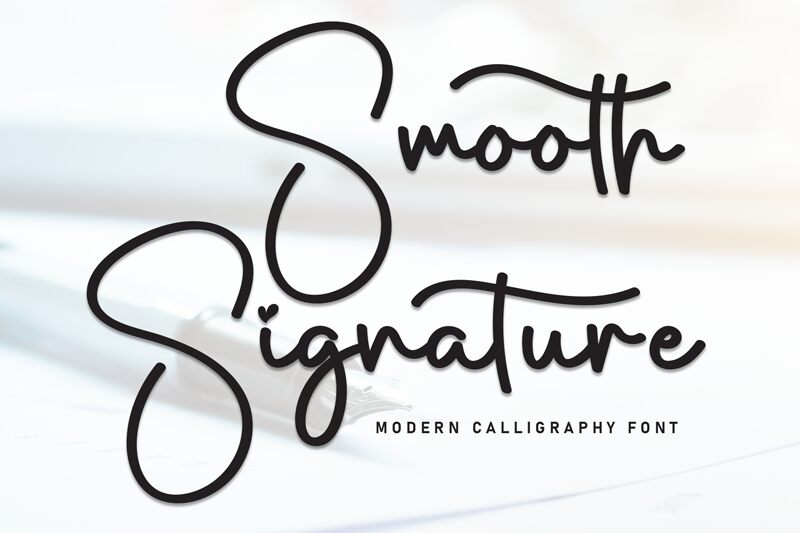
Smooth Signature
Smooth Signature font by Scratchones is a handwritten typeface designed in a light weight. The general look is elegant and casual with handwritten appeal, fluidity, and expressive style. This free handwritten font is an excellent choice for contemporary use in personal branding projects.
Use Smooth Signature for your stationery design ideas (business cards and letterhead), website headers, social media covers, posters, wedding invitations, diaries and journals or book covers. Additionally typography quotes would be properly communicated to the audience when using this font.